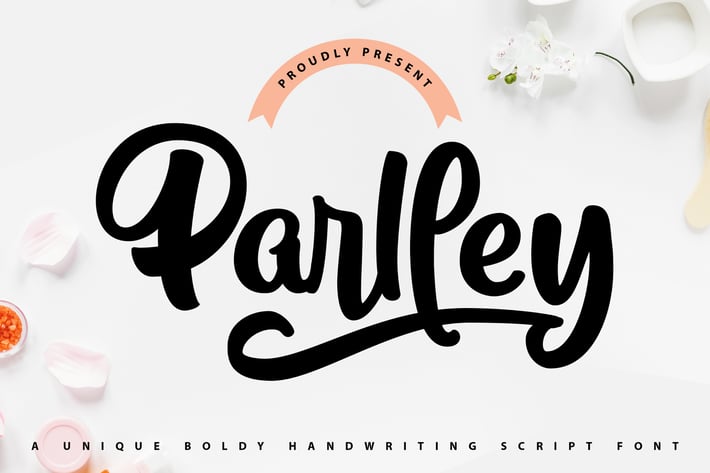
Parlley | Bold Handwriting Script Font
Parlley | Bold Handwriting Script Font with a calligraphy style, So beautiful on invitation like greeting cards, branding materials, business cards, quotes, posters, and more!